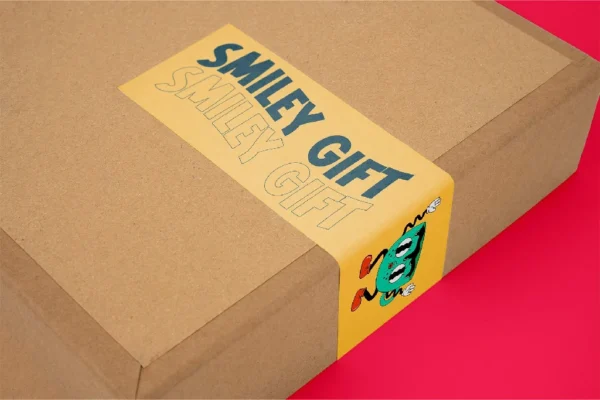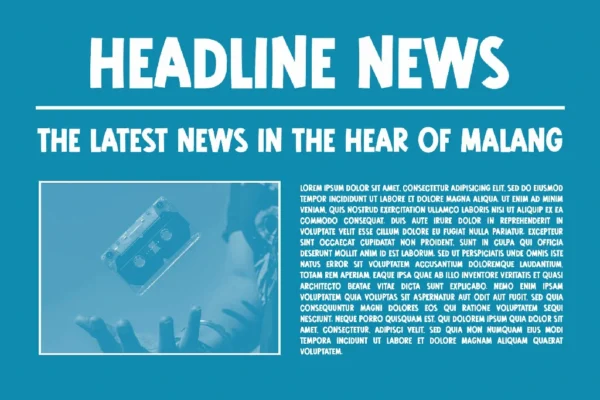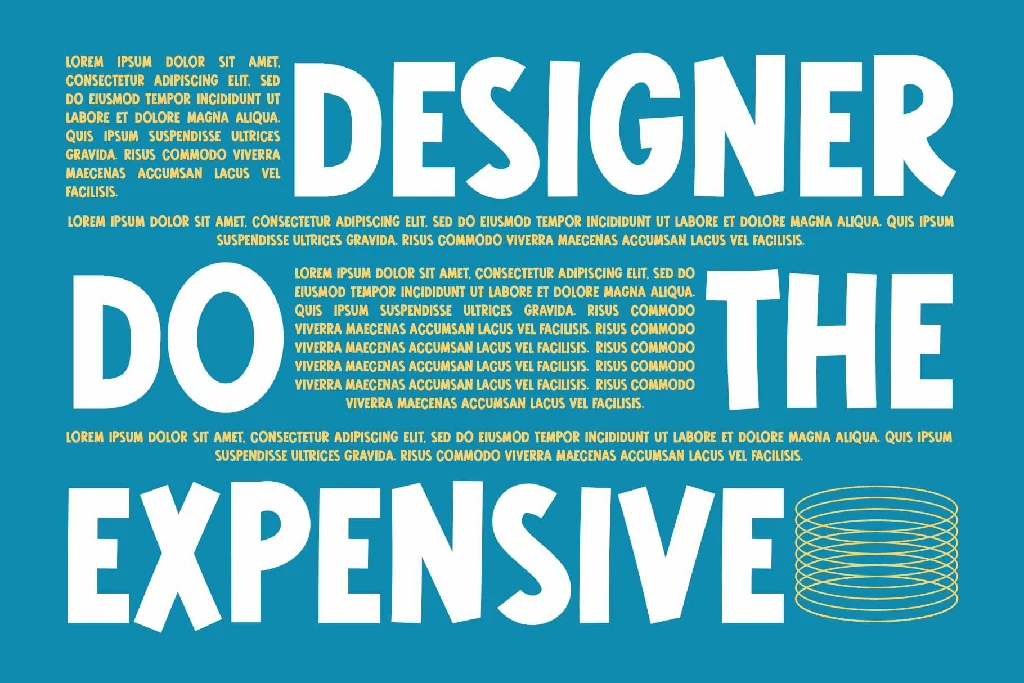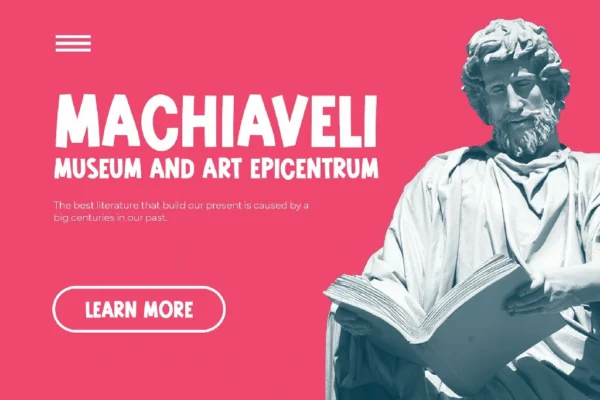
Misrow – Bold & Playful Display Font
Misrow is a bold and playful sans serif display font designed to bring life and energy to your projects. With its chunky, fun lettering and slightly irregular shapes, Misrow is perfect for eye-catching headlines, branding, packaging, posters, and more. Whether for a retro, modern, or whimsical look, this all-caps font guarantees a lively and engaging touch.
Bring Fun and Energy to Your Designs with Misrow!
Looking for a font that adds boldness, fun, and a touch of playfulness to your design? Misrow is the perfect choice! This all-caps sans serif display font is designed to make your text stand out with its chunky, irregular strokes and cheerful personality. Whether you’re creating branding materials, product packaging, posters, or digital graphics, Misrow brings an energetic and eye-catching touch to any project.
Why Choose Misrow?
• ✔ Bold & Playful Design – With thick strokes and a slightly quirky shape, Misrow brings excitement and personality to your text. It’s fun, inviting, and perfect for brands that want to be approachable and memorable.
• ✔ Versatile for Various Designs – Whether you’re designing branding, advertising, social media graphics, merchandise, signage, or even book covers, Misrow adapts seamlessly to different creative needs.
• ✔ Perfect for Headlines & Display Use – This font is crafted for maximum impact on large-scale designs. Its bold structure ensures high readability while keeping the fun, playful aesthetic.
• ✔ Retro & Modern Blend – Misrow’s style gives off a vintage-inspired yet modern look, making it ideal for projects that need a nostalgic yet trendy feel.
• ✔ Easy to Use & Accessible – With all-caps letters, Misrow simplifies design choices while providing variety through its unique letterforms. Its clean yet dynamic look ensures a smooth workflow for designers of all levels.
• ✔ High-Quality & Professional – Designed with precision, Misrow ensures professional-grade typography with well-balanced spacing and smooth curves.
Where to Use Misrow?
• Branding & Logos – Create a strong and approachable brand identity with Misrow’s friendly and bold design. Perfect for businesses that want to stand out!
• Packaging Design – Make your product labels, food packaging, and gift boxes more attractive with Misrow’s fun and engaging style.
• Posters & Flyers – Whether for events, music festivals, or promotional materials, Misrow commands attention and delivers a vibrant, eye-catching look.
• Website & UI Design – Misrow adds a modern and energetic touch to websites, banners, and UI elements, making them more engaging.
• Social Media & Content Creation – Create scroll-stopping Instagram posts, YouTube thumbnails, or TikTok graphics with Misrow’s bold aesthetic.
• Merchandise & Apparel – Perfect for T-shirts, mugs, stickers, and other custom products that need a playful and fun vibe.
• Editorial & Book Covers – Whether for children’s books, magazines, or creative covers, Misrow delivers a friendly and lively typography solution.
✅ Full Uppercase Letters (All Caps)
✅ Numbers & Punctuation
✅ Multilingual Support